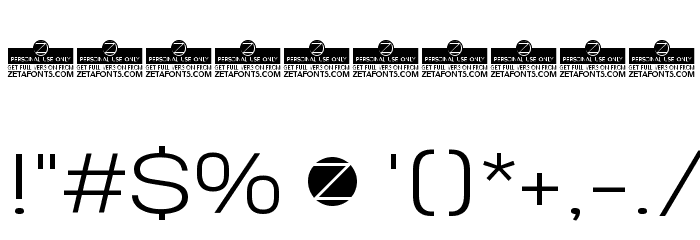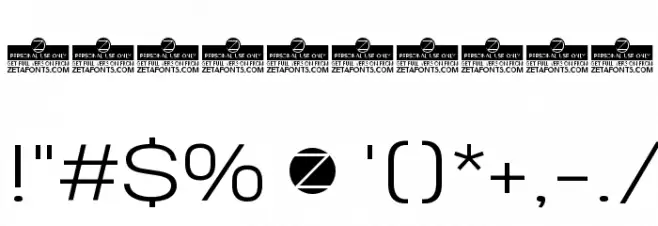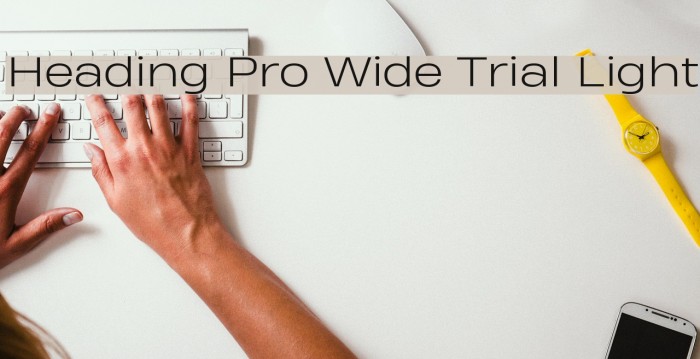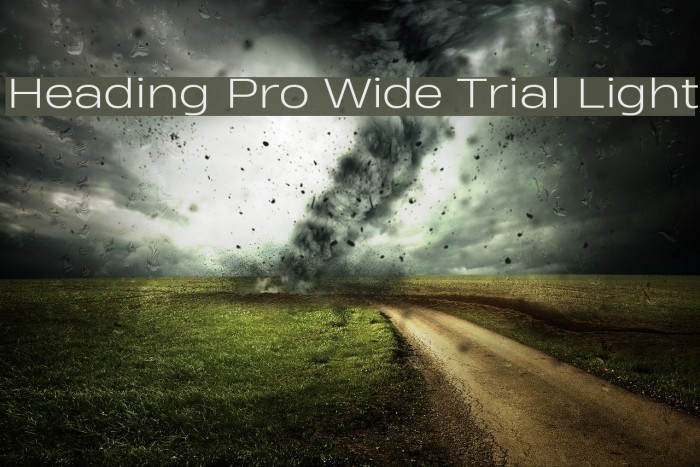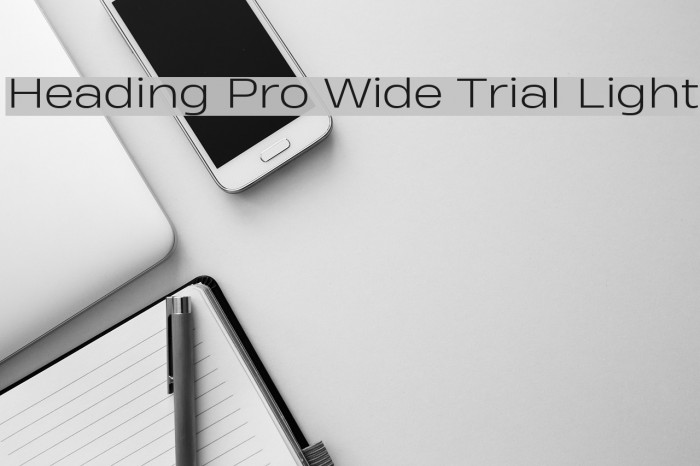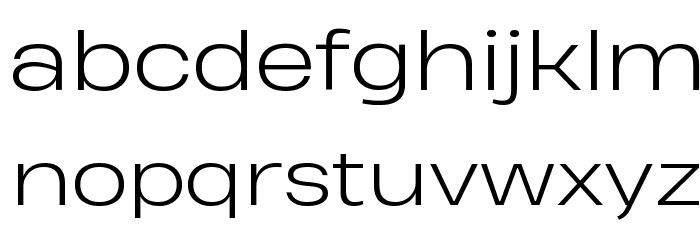
Heading Pro Wide Trial Light Font
✎ Sans Serif
Heading Pro Wide Trial Light Description
This font features a clean, modern aesthetic with a wide stance and light weight. The characters are sans-serif, offering a sleek and minimalist appearance. The uppercase and lowercase letters maintain a consistent style, with smooth curves and straight lines that enhance readability. The numerals and special characters are designed to match the overall style, ensuring a cohesive look across various applications. The font's wide width allows for excellent legibility, making it suitable for both digital and print media.
| Width | Expanded |
| Use Case | Headlines, Body text, Logos |
| Proposed Projects | Ideal for branding, advertising, web design, and editorial projects where a modern and clean look is desired. |